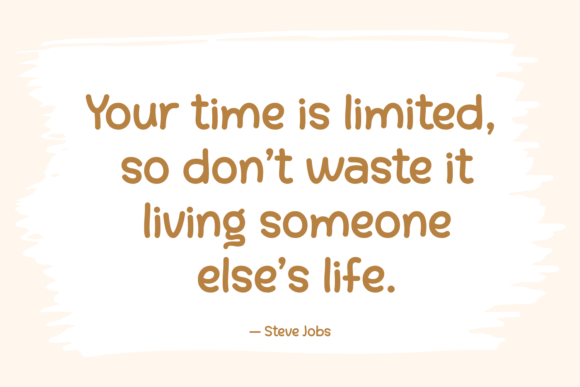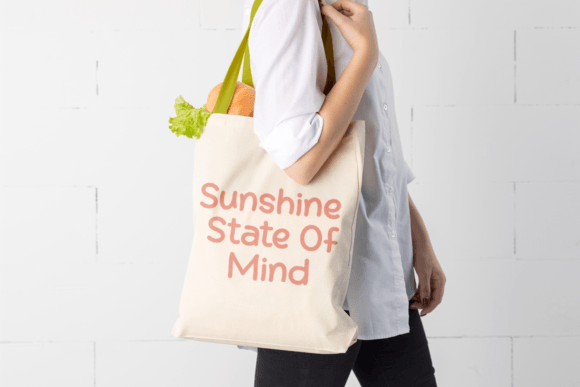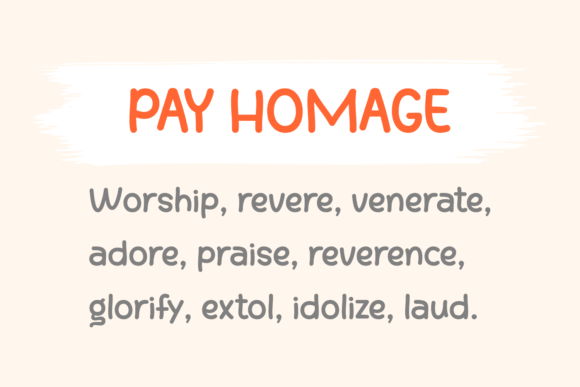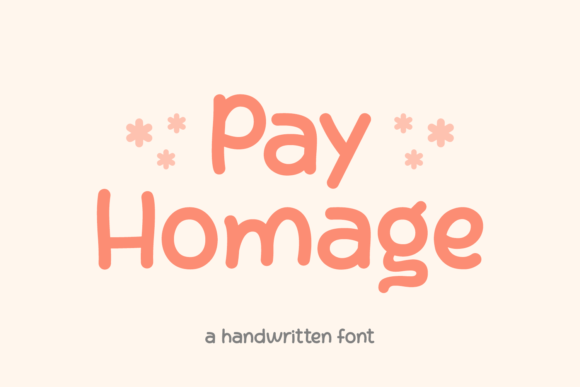
Introduction to Pay Homage Font
Pay Homage is a playful handwritten typeface.
This font is very nice for designing magazine previews and cover designs, logo designs, shirt designs, and other graphic needs .
Key Features of Pay Homage Font